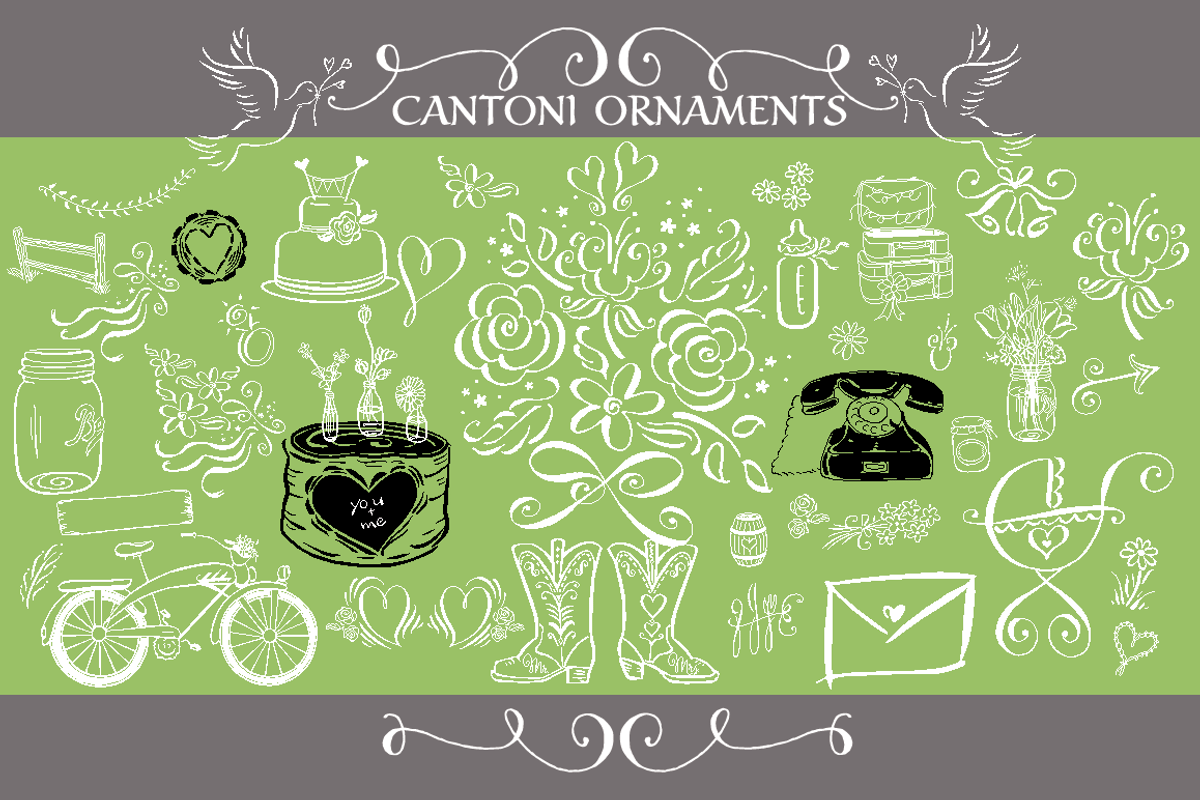
Cantoni Ornaments Font
Cantoni Ornaments Font by Debi Sementelli is a font selected for branding, posters, packaging, typography.
Why Cantoni Ornaments Font is worth a look
Cantoni Ornaments Font by Debi Sementelli fits naturally into Branding, posters, packaging, typography.